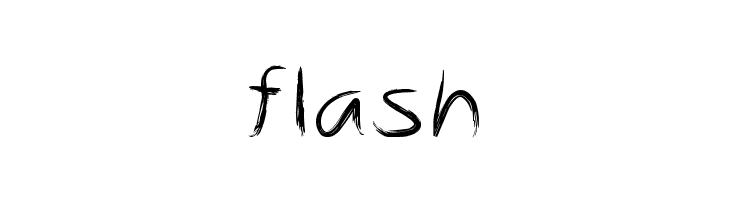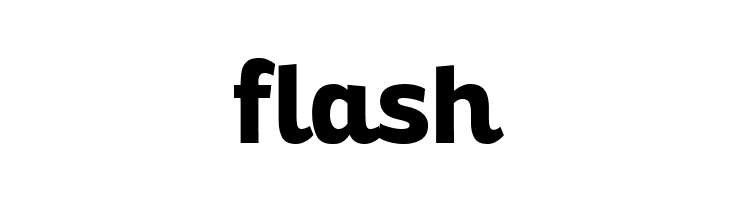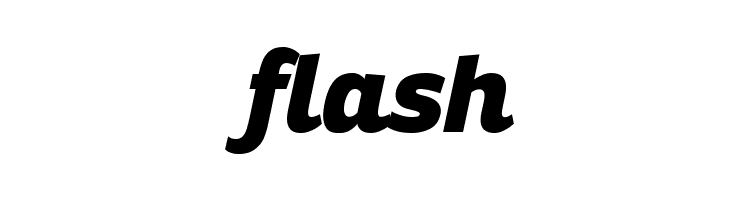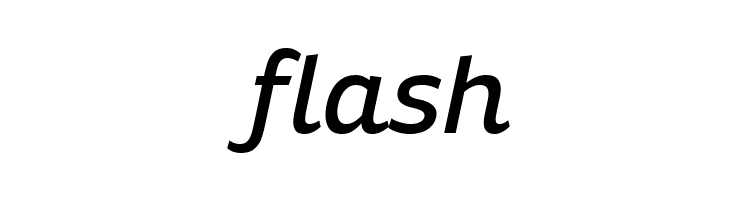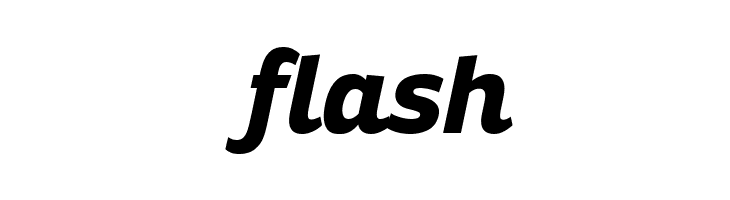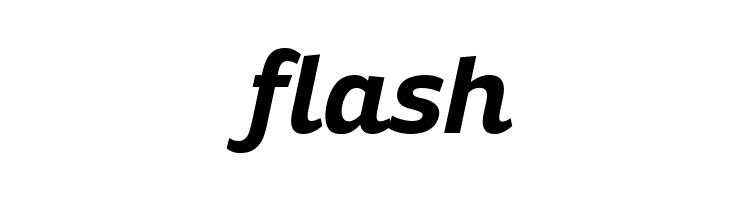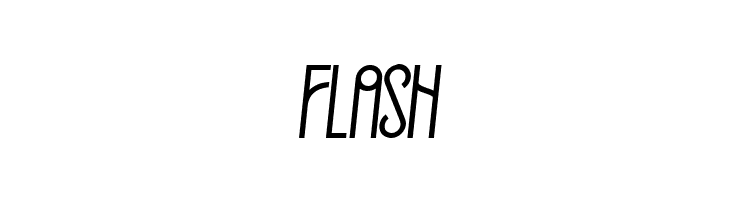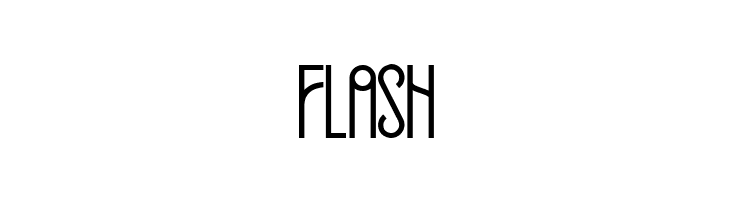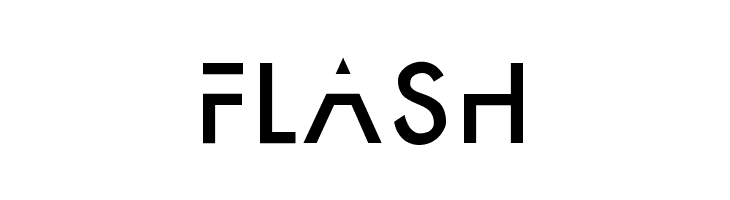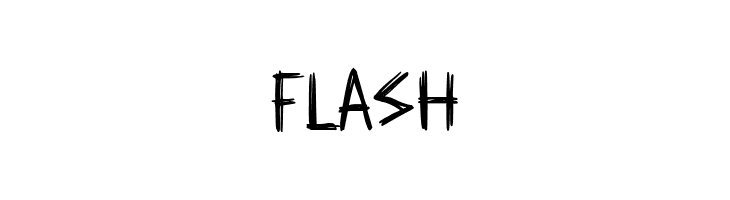
A playful, car-themed decorative font perfect for children's designs.
A modern, geometric font with bold, angular letterforms and a futuristic aesthetic.
A decorative font with intricate floral patterns within each character.
A bold, handwritten-style font with dynamic, sweeping strokes.
A dynamic, brush-stroke font with an edgy and expressive style.
A bold, geometric font with a playful, modern style.
A lively handwritten font with expressive, fluid strokes and a casual elegance.
A playful, rope-themed decorative font with bold, rounded characters.
A dynamic cursive script font with fluid, connected letters and varied stroke thickness.
A whimsical, fantasy-themed decorative font with intricate, hand-drawn elements.
A geometric, abstract font with blocky, angular shapes and a futuristic aesthetic.
A modern, geometric font with bold, clean lines and a striking presence.
Abstract, experimental font with organic, amorphous forms.
An abstract, artistic font with fragmented and distorted letterforms.
A playful, casual handwritten font with smooth, flowing lines.
A lively, flowing script font with elegant, cursive letterforms.
A bold, hand-drawn script font with a playful and artistic style.
A clean, modern sans-serif font with excellent readability and uniform stroke widths.
A modern, elongated font with narrow characters and a sleek design.
A modern, narrow, and slightly italic font with a retro touch.
A bold, hand-drawn font with a raw, edgy style.
A scratchy, hand-drawn font with a rebellious and edgy style.
A bold, decorative font with a 3D shadow effect, perfect for eye-catching designs.
A bold, three-dimensional font with a modern geometric style.
A playful, handwritten font with a whimsical and friendly style.
A bold, flowing script font with a playful and dynamic style.
A dynamic and expressive handwritten font with fluid, cursive letterforms.
A bold, flowing script font with a handwritten, interconnected style.
A bold, cursive font with a playful and energetic handwritten style.
A bold and italicized font with a modern, dynamic style.
A bold, modern font with clean lines and rounded edges, perfect for impactful designs.
A bold, italic typeface with a modern and dynamic style.
A bold and heavy typeface with strong, impactful strokes and rounded edges.
A bold, italic font with a dynamic and modern style.
A sleek, modern italic font with smooth, flowing lines and a dynamic slant.